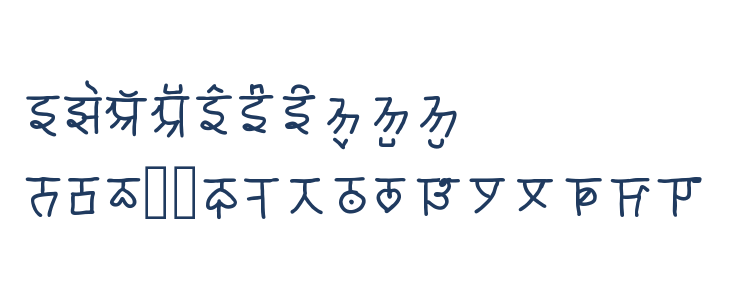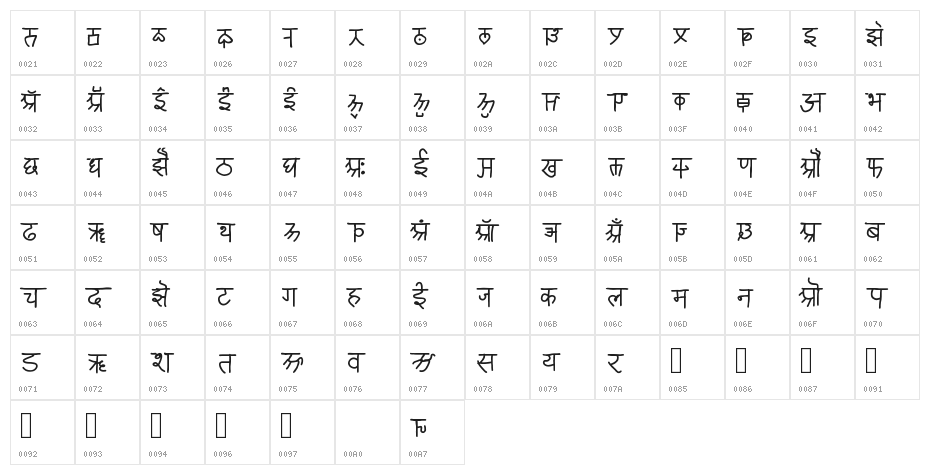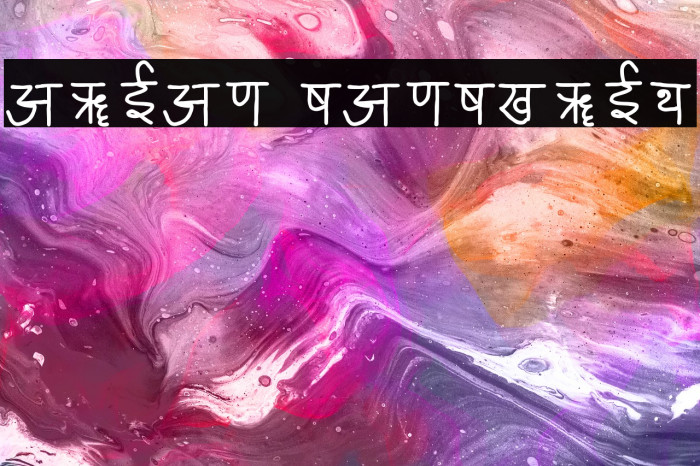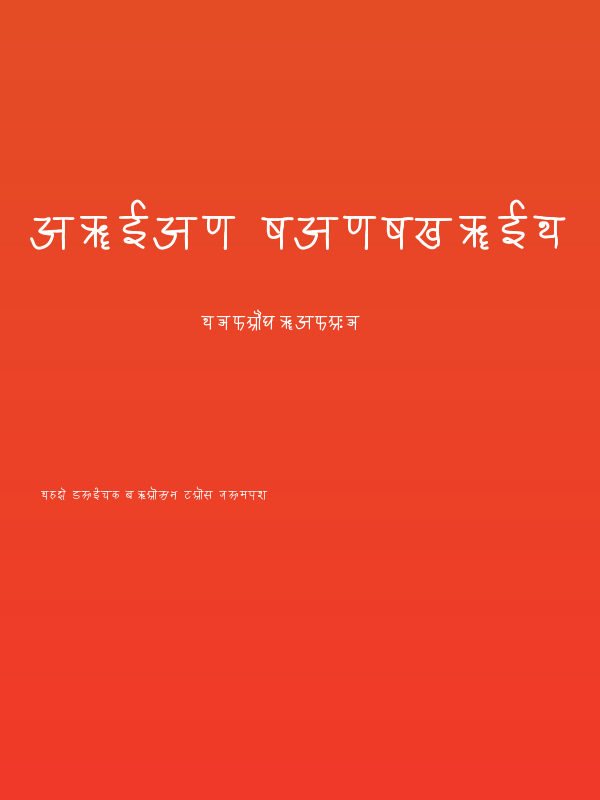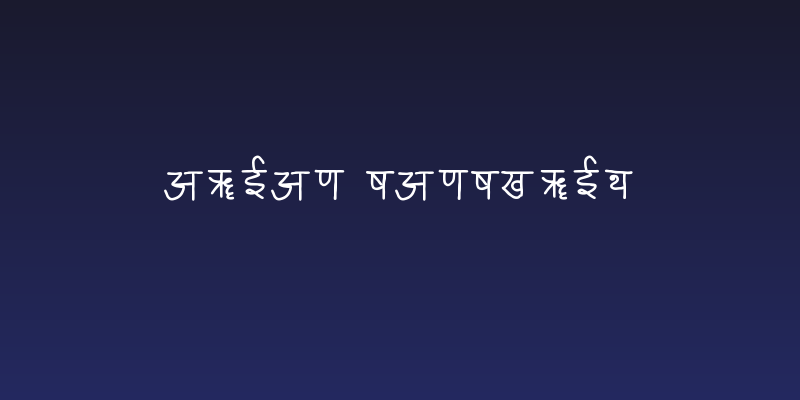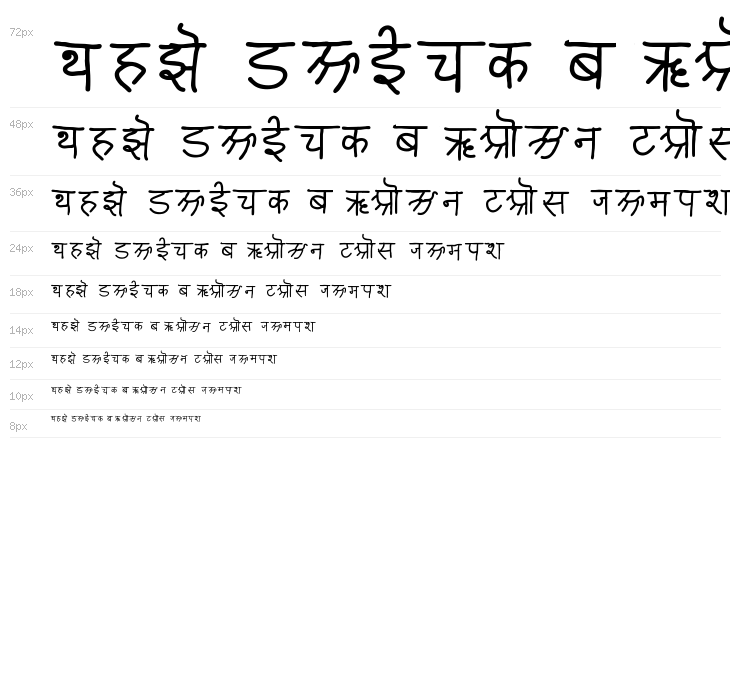
ARIAN SANSKRIT Font
ARIAN SANSKRIT Description
This font is inspired by traditional Sanskrit script, featuring a unique blend of historical and modern elements. The characters are elegantly curved with distinct, flowing lines that evoke a sense of cultural richness. Each letter is crafted with attention to detail, maintaining the essence of ancient script while ensuring readability. The strokes are moderately thick, providing a balanced contrast that enhances visibility. The font's style is both decorative and functional, making it suitable for various design applications. Its intricate design and cultural significance make it an excellent choice for projects that aim to convey a sense of tradition and heritage.
| Overall Style | Traditional, Decorative |
| Use Case | Headlines, Artistic projects, Cultural branding |
| Proposed Projects | Ideal for cultural publications, educational materials, artistic projects, and branding that emphasizes heritage. |